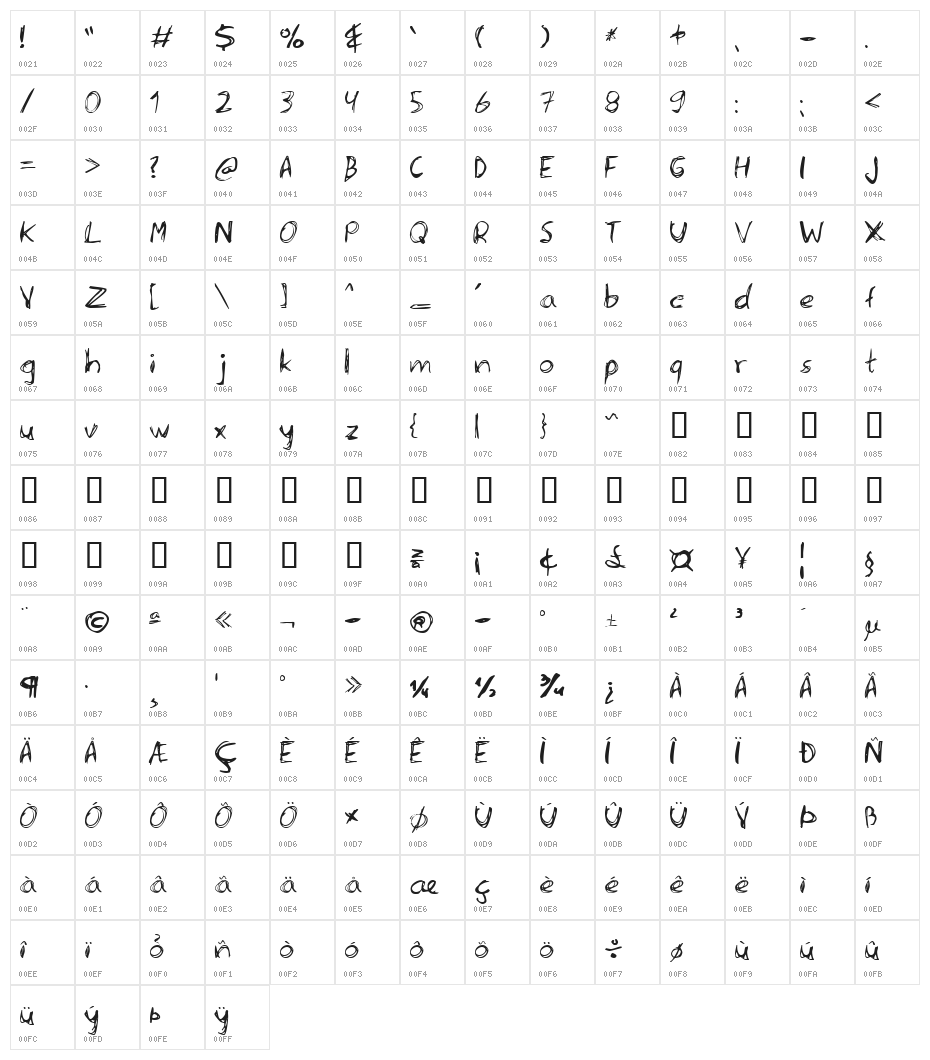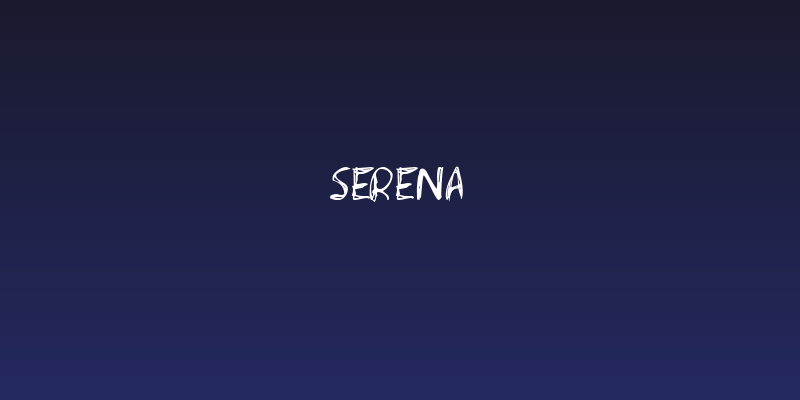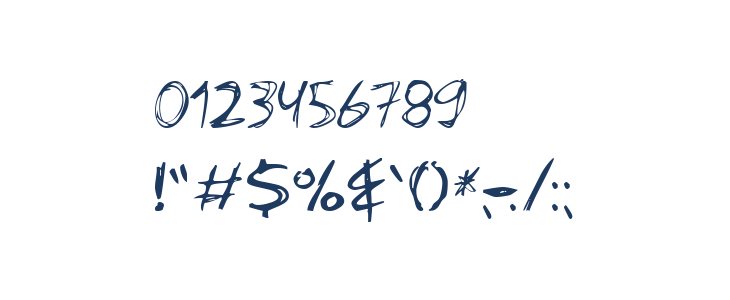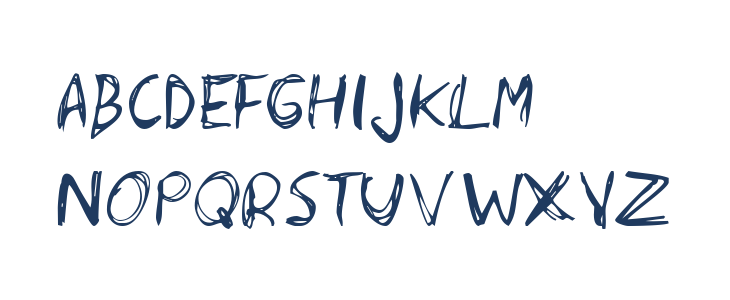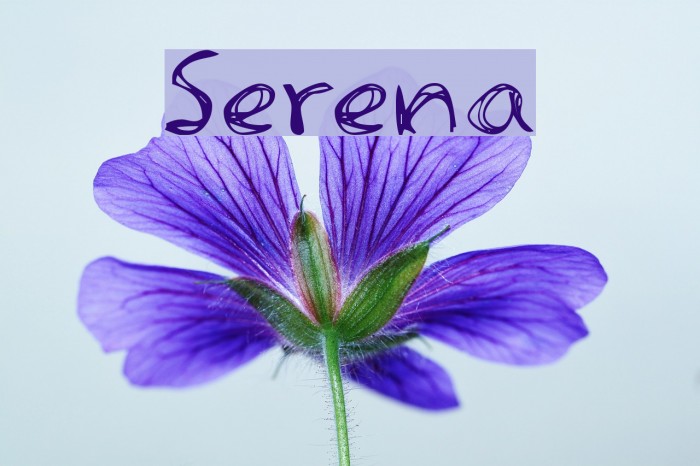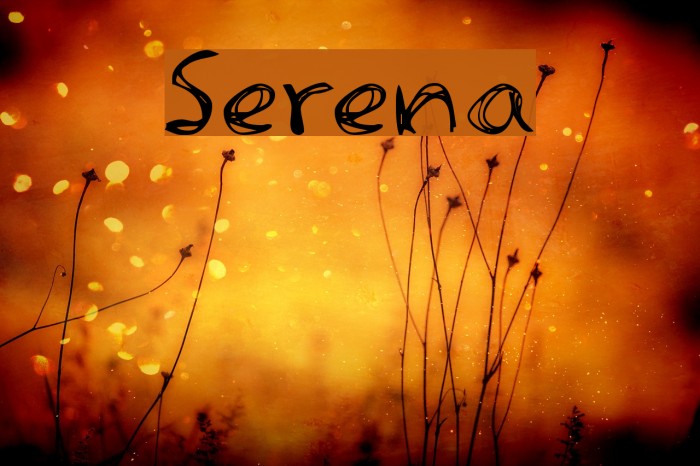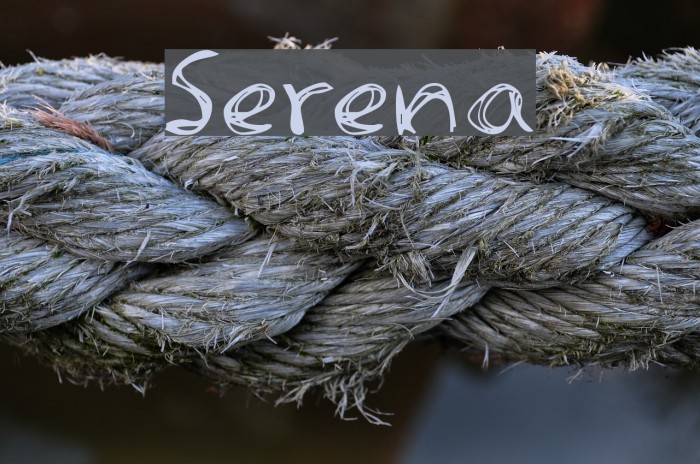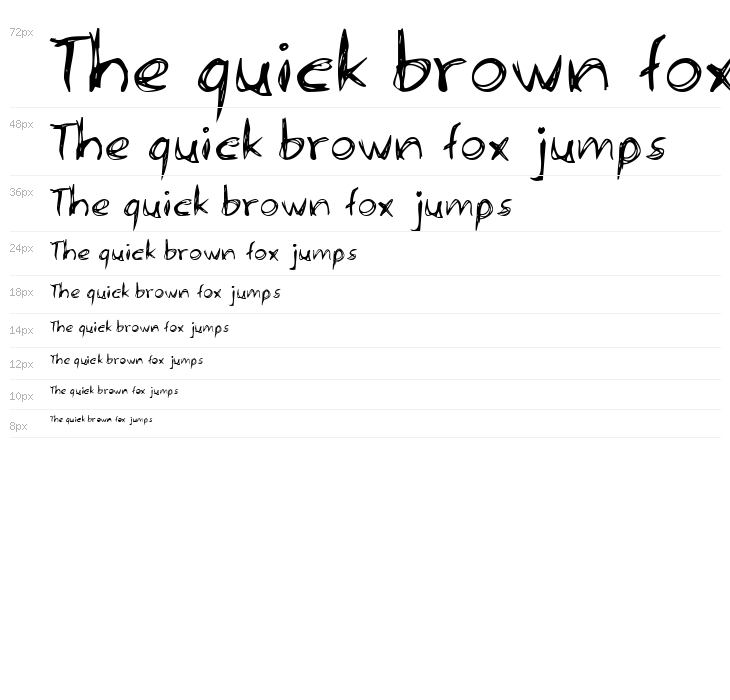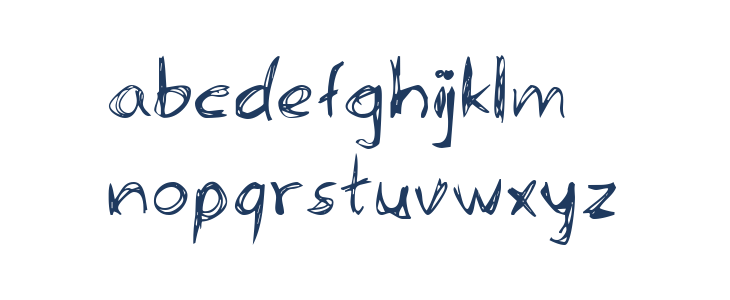
Serena Font
This font exudes a dynamic and expressive style, characterized by its bold, brush-like strokes that give it a hand-drawn appearance. The irregularity in the letterforms adds a sense of movement and energy, making it ideal for creative and artistic projects. The uppercase and lowercase letters maintain a consistent style, with some letters featuring unique flourishes that enhance its visual appeal. Numbers and special characters are equally expressive, ensuring a cohesive look across all text elements. This font's playful and informal nature makes it perfect for projects that require a personal touch.
| Proposed Projects | Ideal for posters, album covers, artistic branding, and creative social media graphics. |